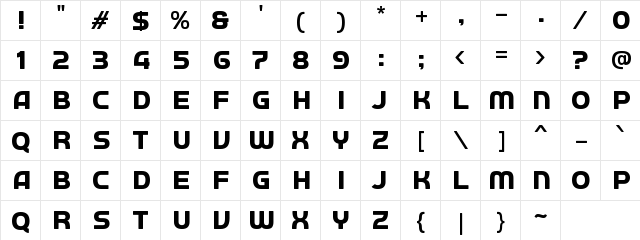
a Autobus Omnibus Regular
| Designer | Wahyu Eka Prasetya |
Design Context for a Autobus Omnibus Typeface
a Autobus Omnibus offers clean, dependable letterforms without strong stylistic allegiance, making it a practical choice for designers who need flexibility.